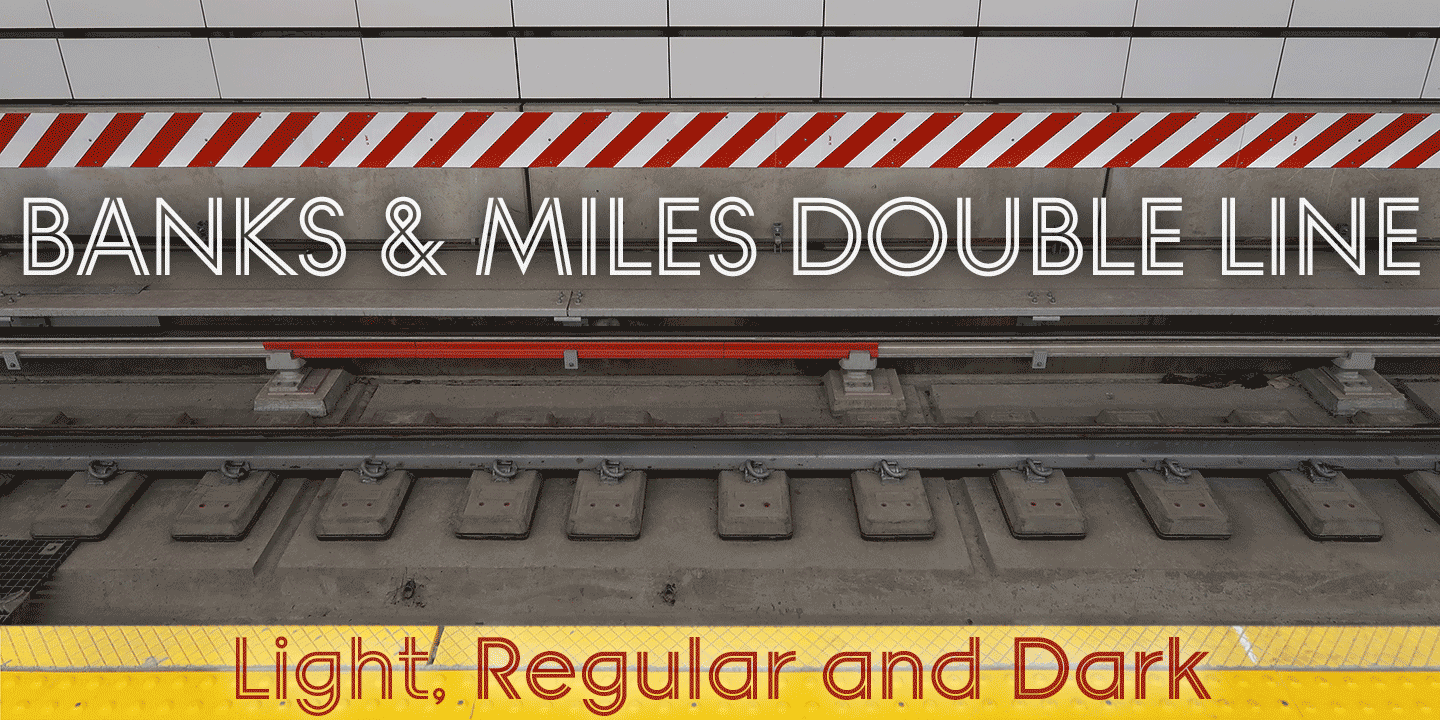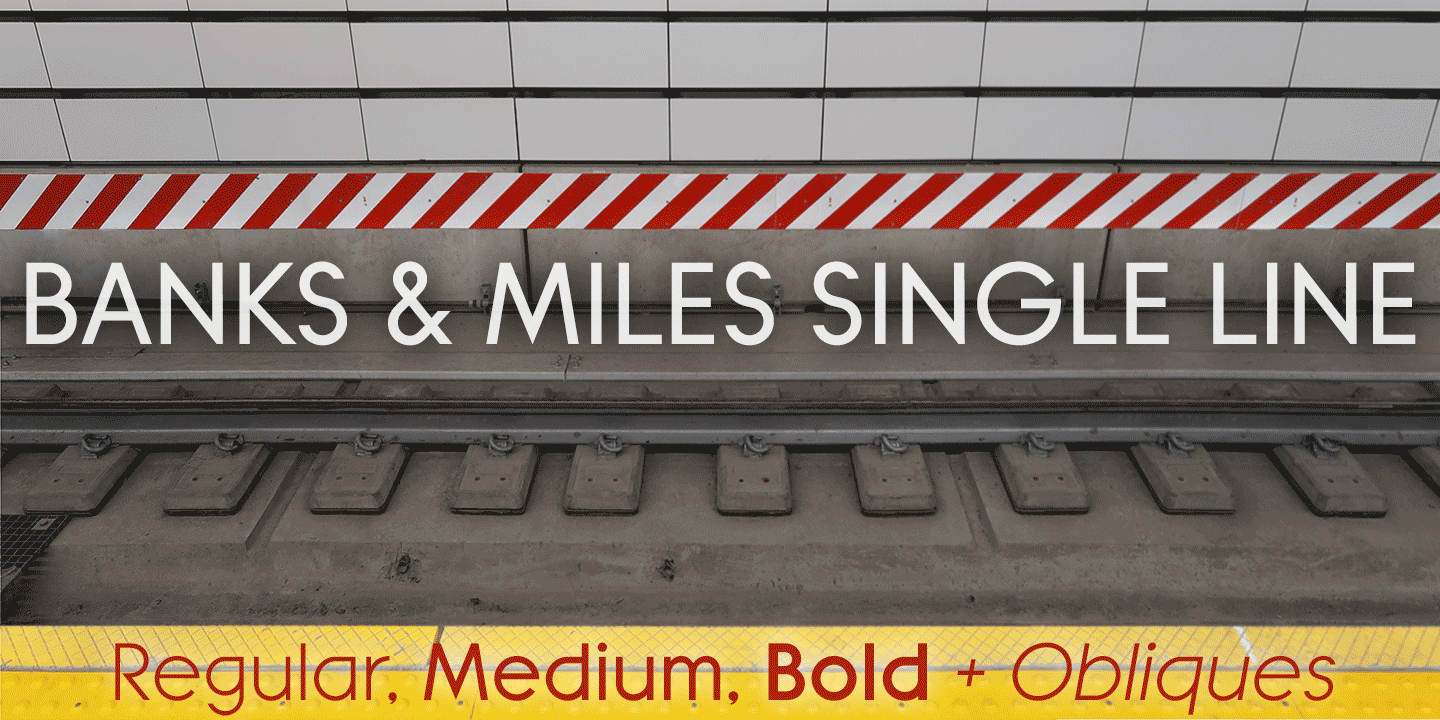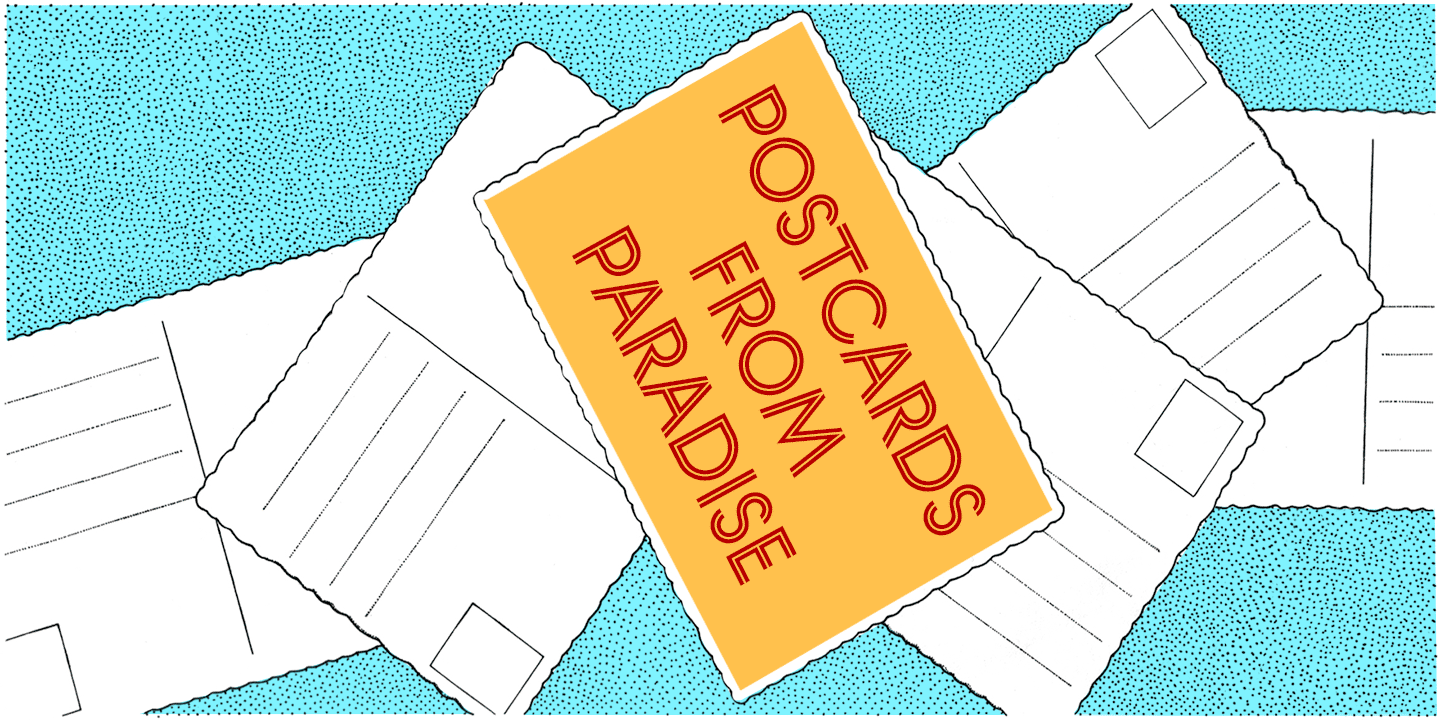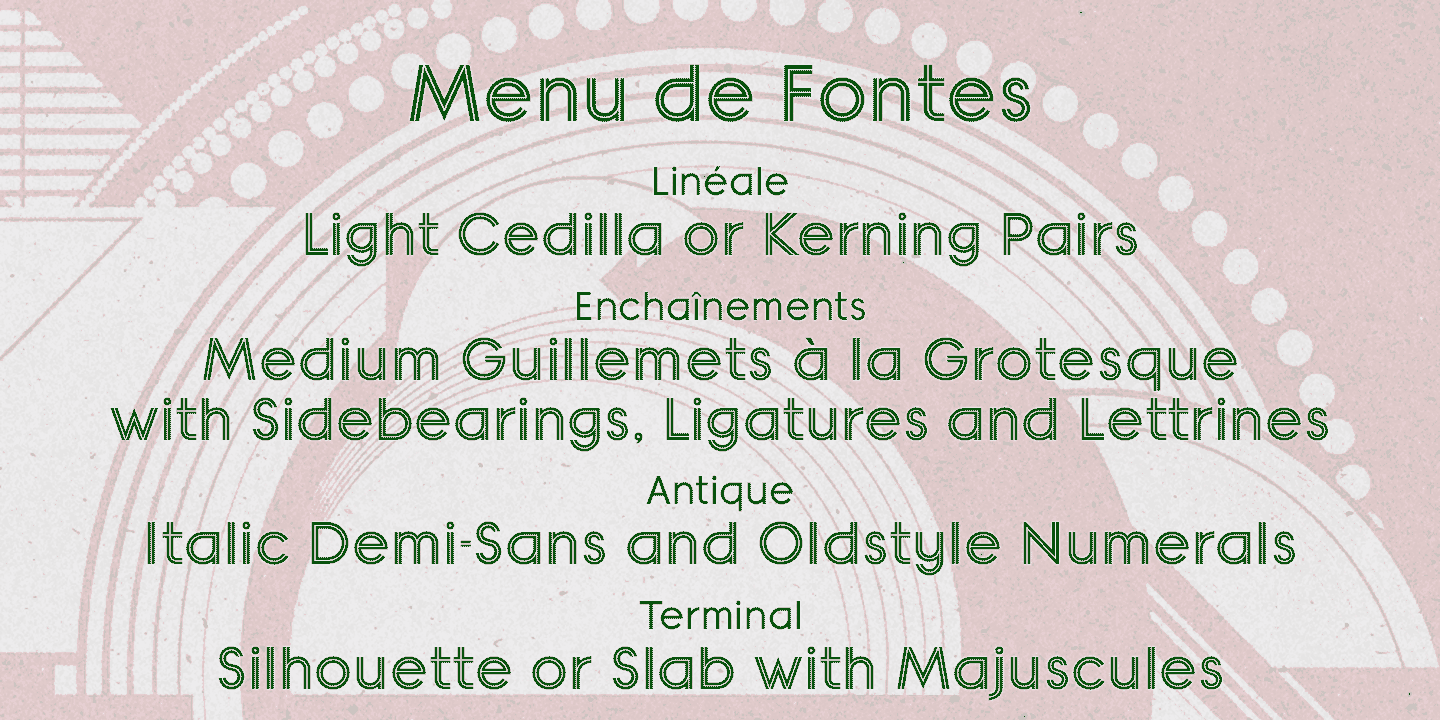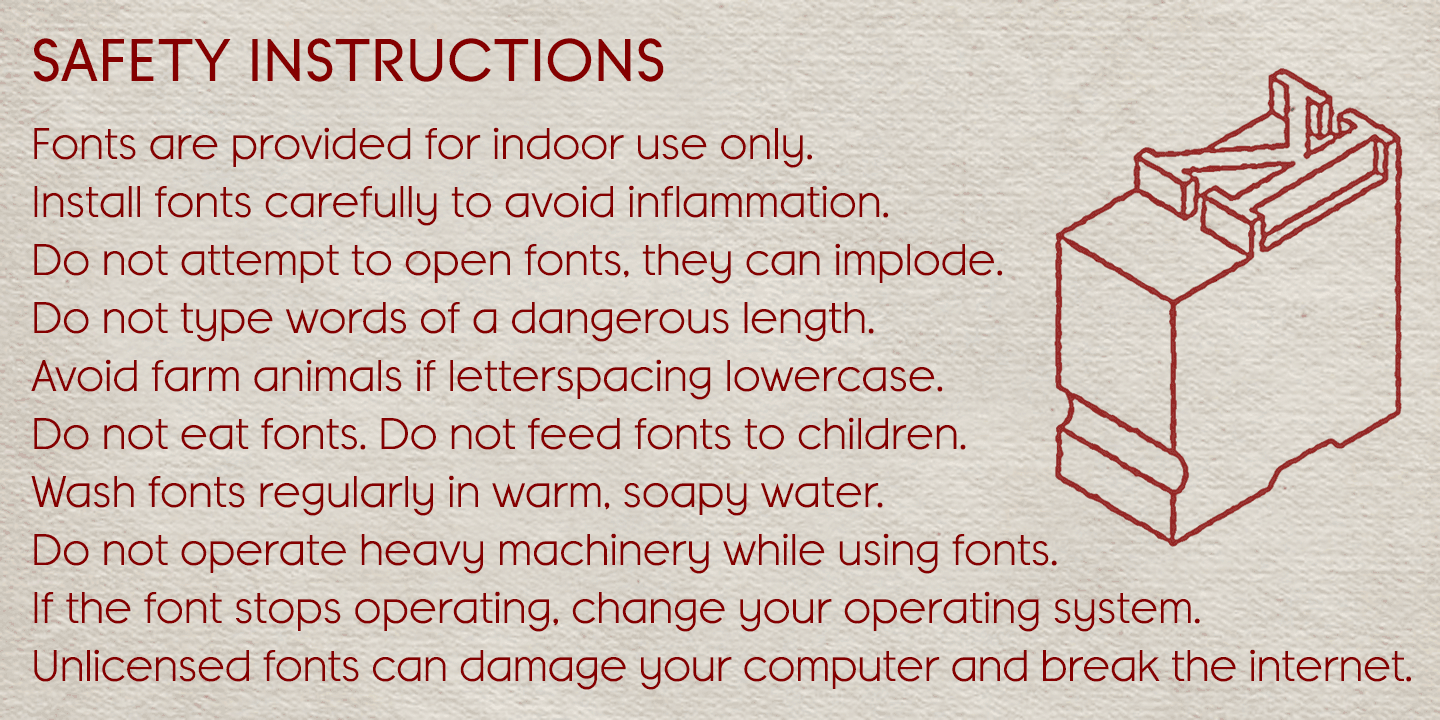
Banks & Miles
K-Type's Banks & Miles fonts are inspired by the geometric monoline lettering created for the British Post Office in 1970 by London design company Banks & Miles, a project initiated and supervised by partner John Miles, and which involved creating ?Double Line? and ?Single Line? alphabets. The new digital typeface is a reworking and extension of both alphabets.
Banks & Miles Double Line is provided in three weights ? Light, Regular and Dark ? variations achieved by adjusting the width of the inline. Banks & Miles Single Line develops the less used companion sans into a three weight family ? Regular, Medium and Bold ? each with an optically corrected oblique.
Although the Banks & Miles Double Line and Banks & Miles Single Line fonts are based on the original Post Office letterforms, glyphs have been drawn from scratch and include numerous adjustments and impertinent alterations, such as narrowing the overly wide Z and shortening the leg of the K. Several disparities exist between the Post Office Double and Single Line styles, and K-Type has attempted to secure greater consistency between the two. For instance, a wide apex on the Double Line's lowercase w is made pointed to match the uppercase W and the Single Line's W/w. Also, the gently sloping hook of Single Line's lowercase j is adopted for both families. The original Single Line's R and k, which were incongruously simplified, are drawn in their more remarkable Double Line forms, and whilst the new Single
Line fonts are modestly condensed where appropriate, rounded letters retain the essentially circular form of the Double Line. Many characters that were not part of the original project.